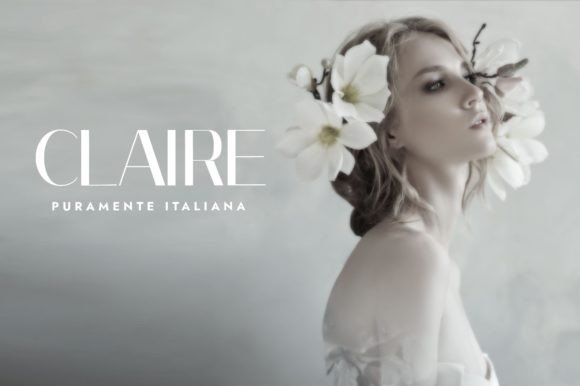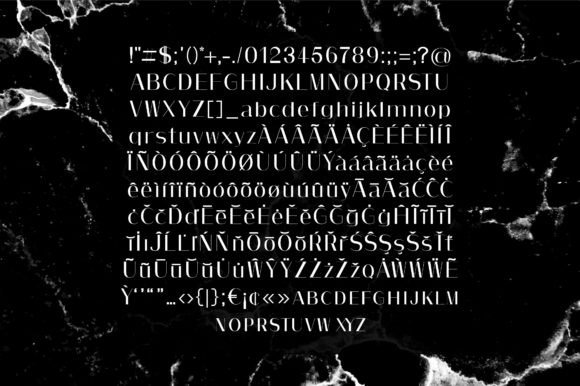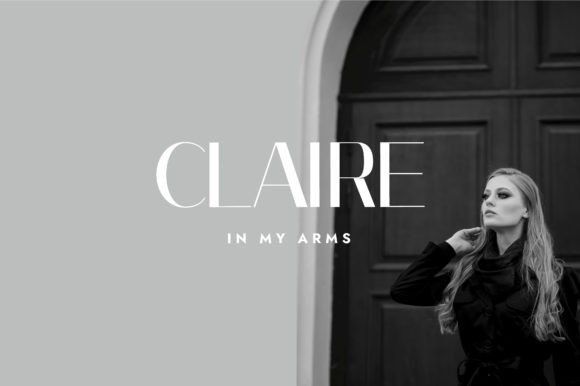
Discover the Elegance of Claire Font: Elevate Your Design with a Delicate Sans Serif
In the world of typography, fonts play a crucial role in conveying messages, setting tones, and creating visual identities. For designers and crafters looking for a typeface that exudes femininity and delicacy, Claire Font stands out as an exceptional choice. Designed to meet the diverse needs of creative projects, Claire is a sans serif font that promises to elevate your design endeavors with its unique charm and versatility.
The Essence of Claire Font
Claire Font is characterized by its clean lines, simple shapes, and a touch of elegance that makes it distinctly feminine. Unlike traditional serif fonts, Claire’s sans serif design offers a modern and fresh feel, making it perfect for projects that demand a contemporary look. Its delicate nature allows it to complement a wide range of themes, from fashion and beauty to lifestyle and creative arts.
Key Features of Claire Font
- Feminine and Delicate: Claire’s design elements are carefully crafted to provide a soft and elegant appearance, ideal for designs that require a touch of sophistication.
- Versatile: This font is not limited to a specific genre. It can be used in various projects, including branding, packaging, digital media, and more.
- Easy to Read: Despite its delicate nature, Claire maintains excellent readability, ensuring that your message is conveyed clearly and effectively.
- Highly Customizable: Claire can be easily manipulated to fit your project’s specific needs. Whether you need to adjust the size, color, or integrate it with other fonts, Claire offers great flexibility.
Applications of Claire Font
The versatility of Claire Font makes it suitable for a myriad of applications. Here are a few ideas to get you started:
- Fashion and Beauty Branding: Use Claire to create elegant logos, product labels, and marketing materials that speak to your audience with sophistication.
- Digital Content: Enhance your blog posts, social media graphics, and website design with Claire’s modern and clean aesthetic.
- Stationery and Packaging: Add a touch of elegance to your business cards, letters, and product packaging with Claire’s delicate charm.
- Art and Craft Projects: Whether you’re designing invitations, making DIY crafts, or creating art, Claire can add a professional and refined look to your work.
Tips for Using Claire Font Effectively
To maximize the potential of Claire Font in your designs, consider the following tips:
- Pair with Complementary Fonts: While Claire is beautiful on its own, pairing it with contrasting fonts can enhance its features and create visual interest.
- Experiment with Colors: Don’t be afraid to play with different colors. Claire’s simplicity makes it a great canvas for vibrant and pastel colors alike.
- Adjust Font Sizes: Use varying font sizes to create a hierarchy of information, making your design more engaging and easier to navigate.
Claire Font is more than just a typeface; it’s a design companion that can elevate your creative process and help you achieve your design goals. Its feminine and delicate sans serif design, combined with its versatility and readability, makes it an excellent choice for designers and crafters across various projects. By incorporating Claire into your design toolkit, you’ll discover new possibilities for creating visually appealing and effective designs. So, dive into the world of Claire Font and let its elegance transform your creative endeavors.